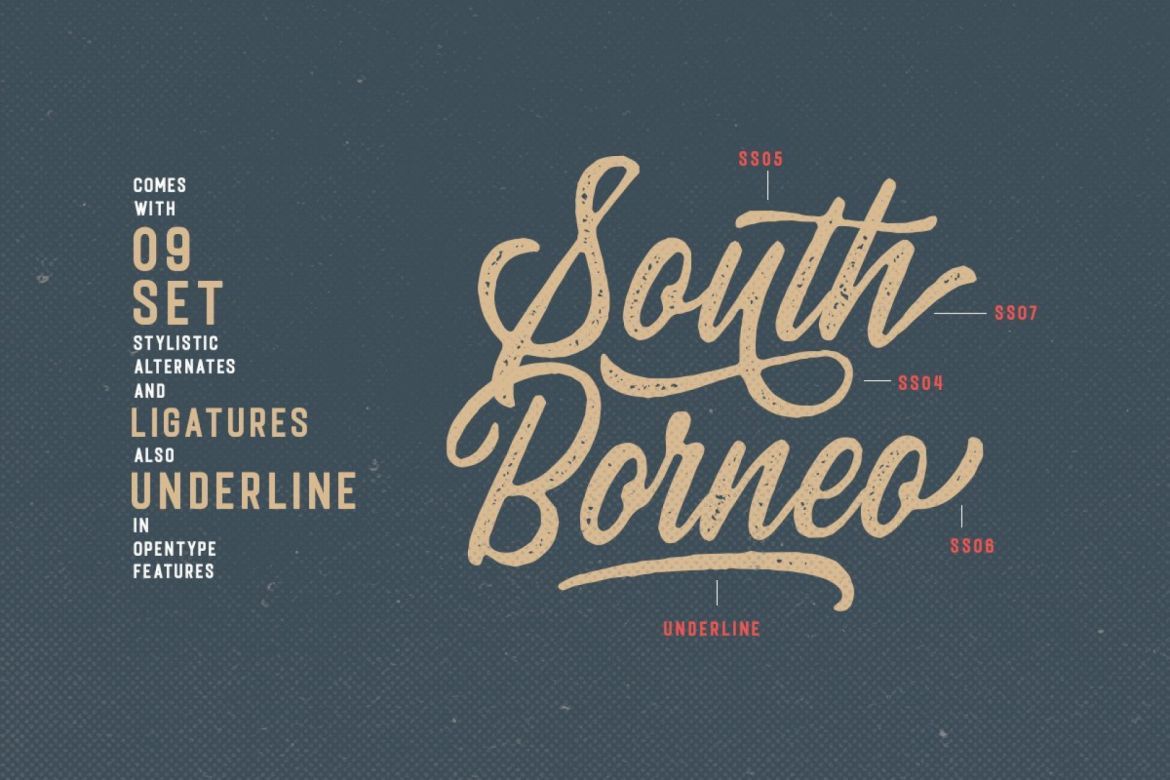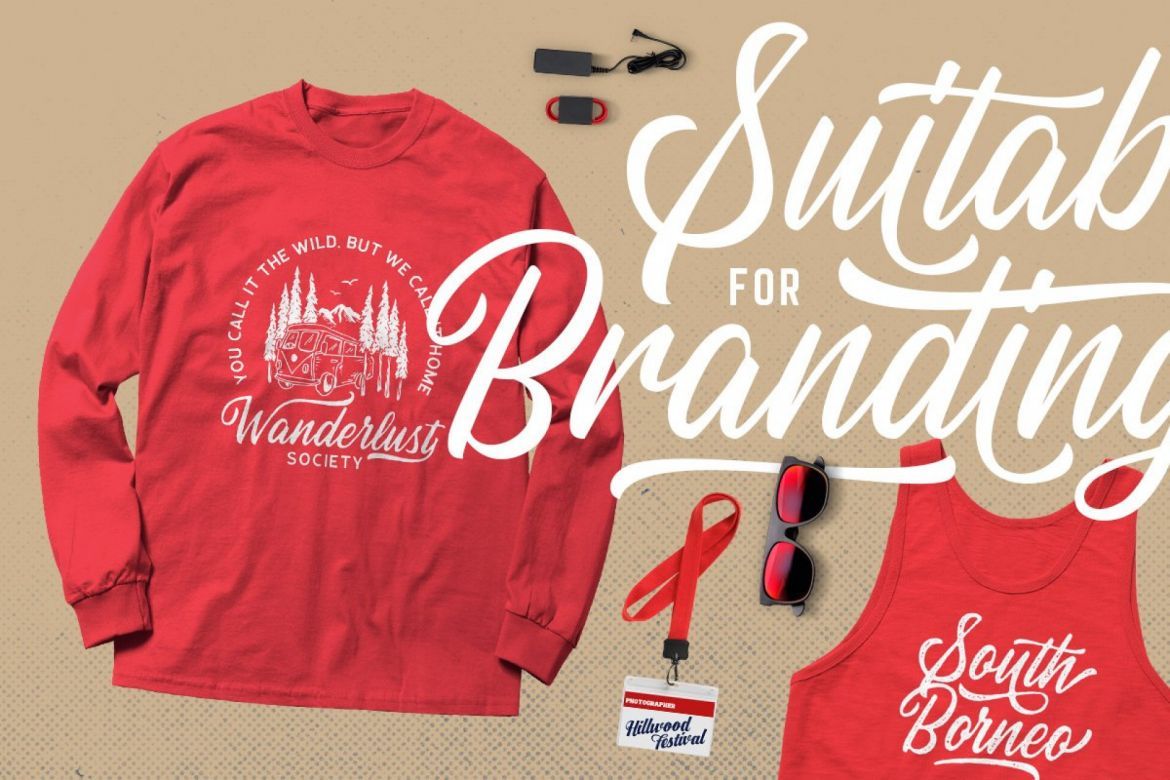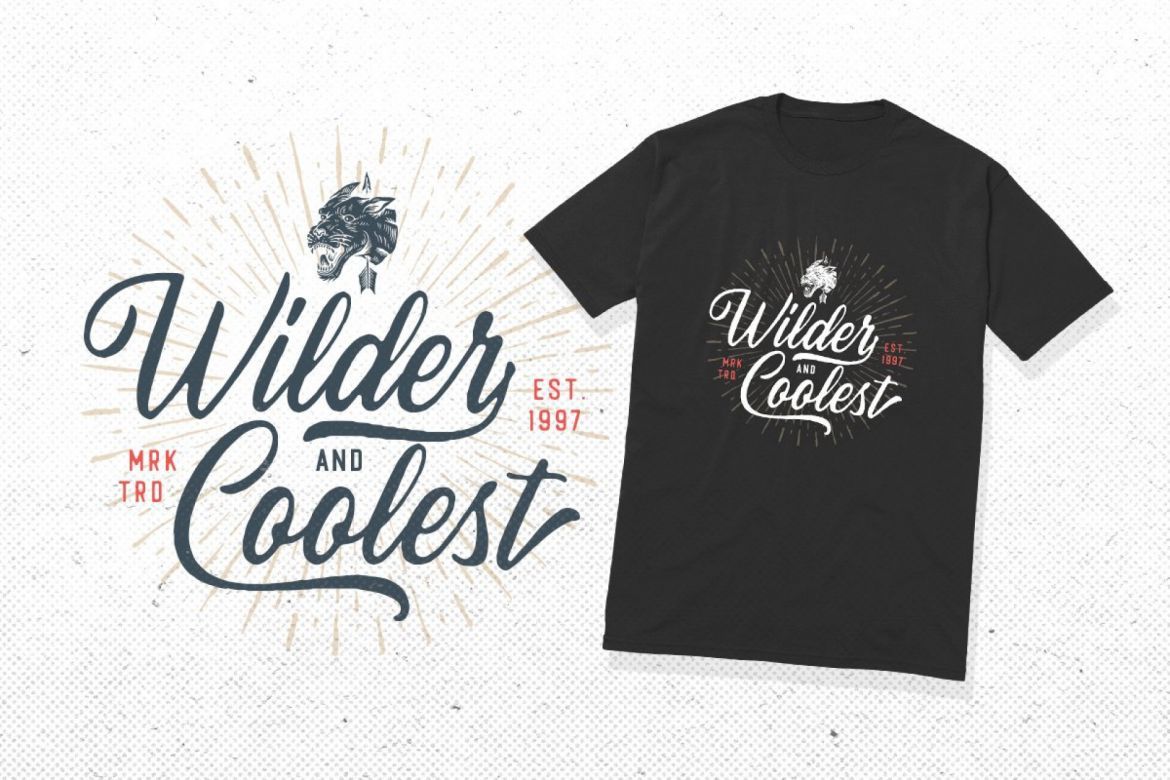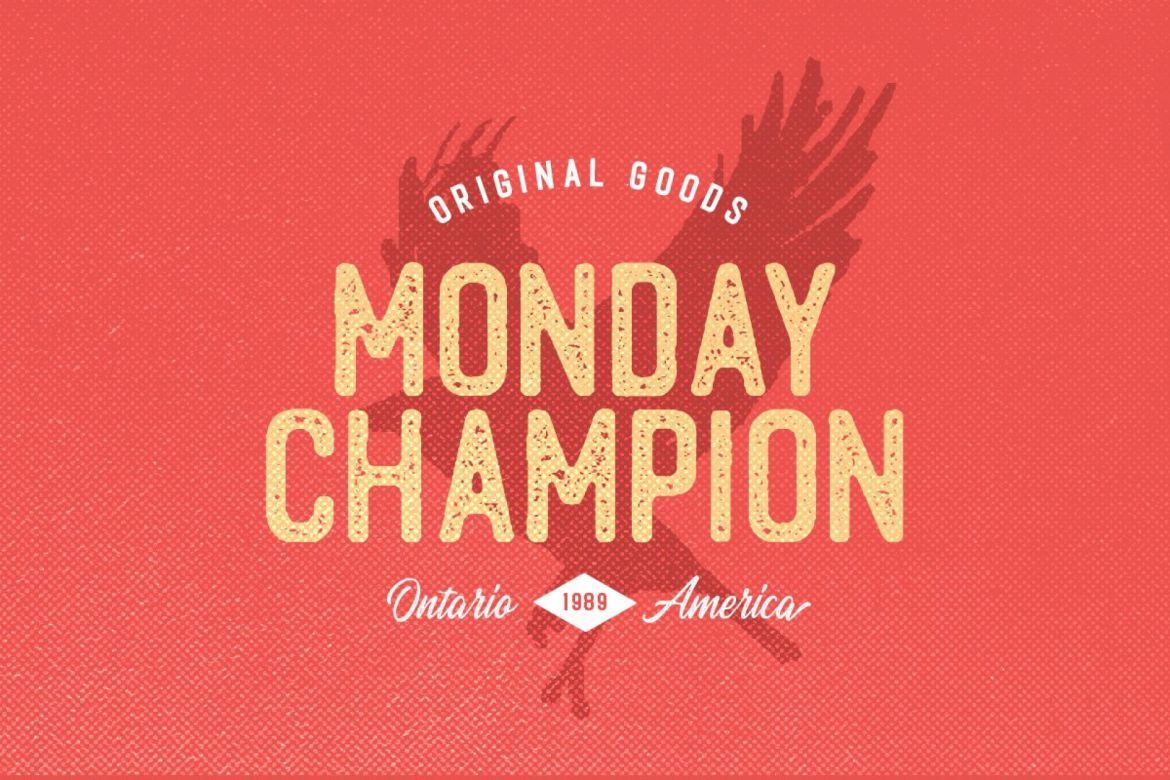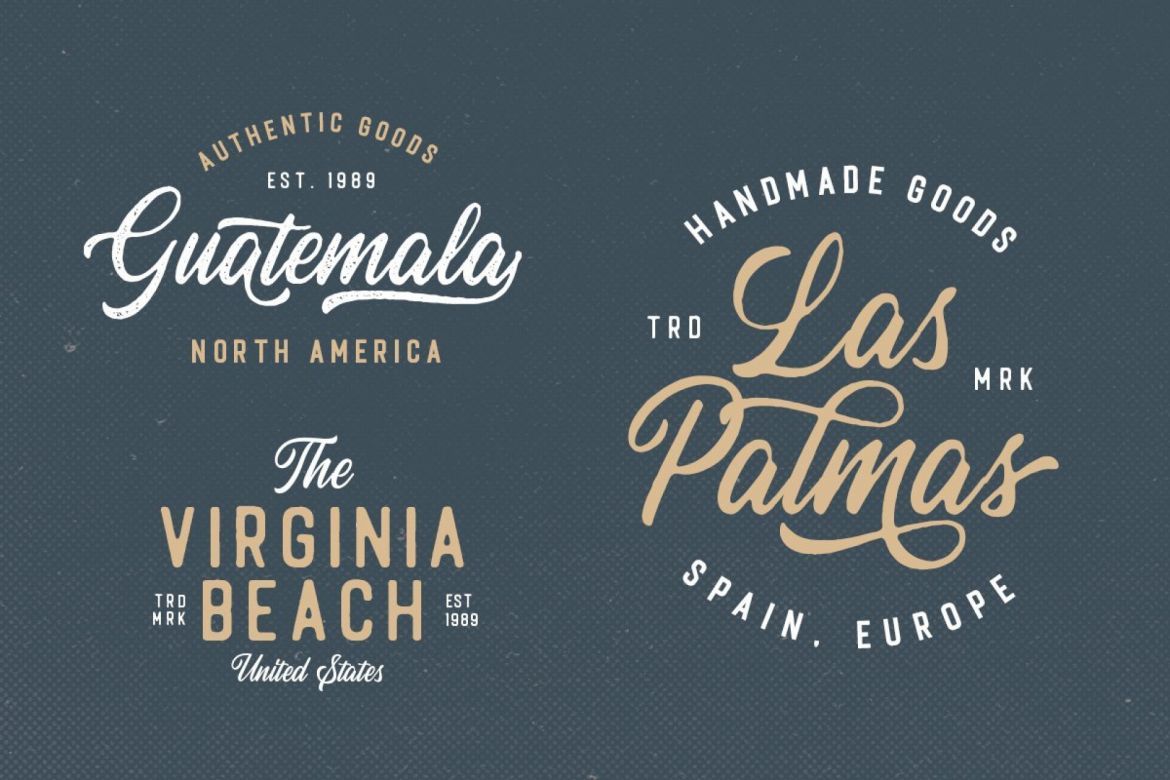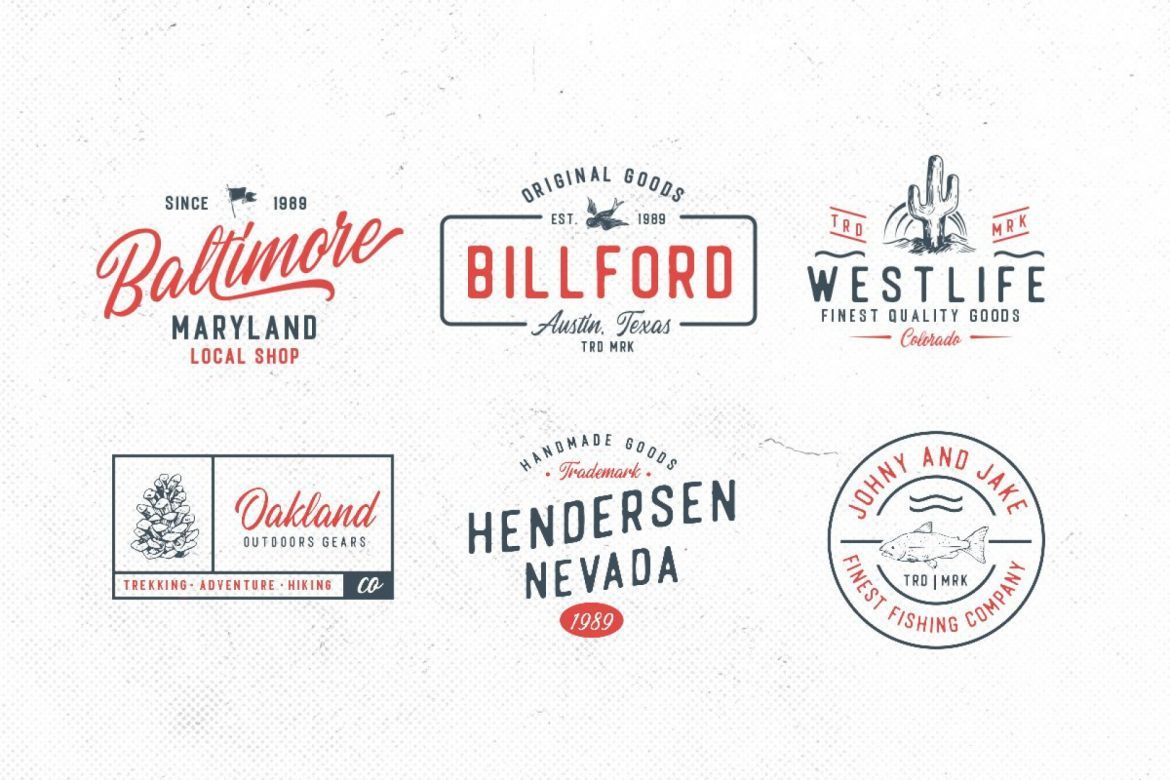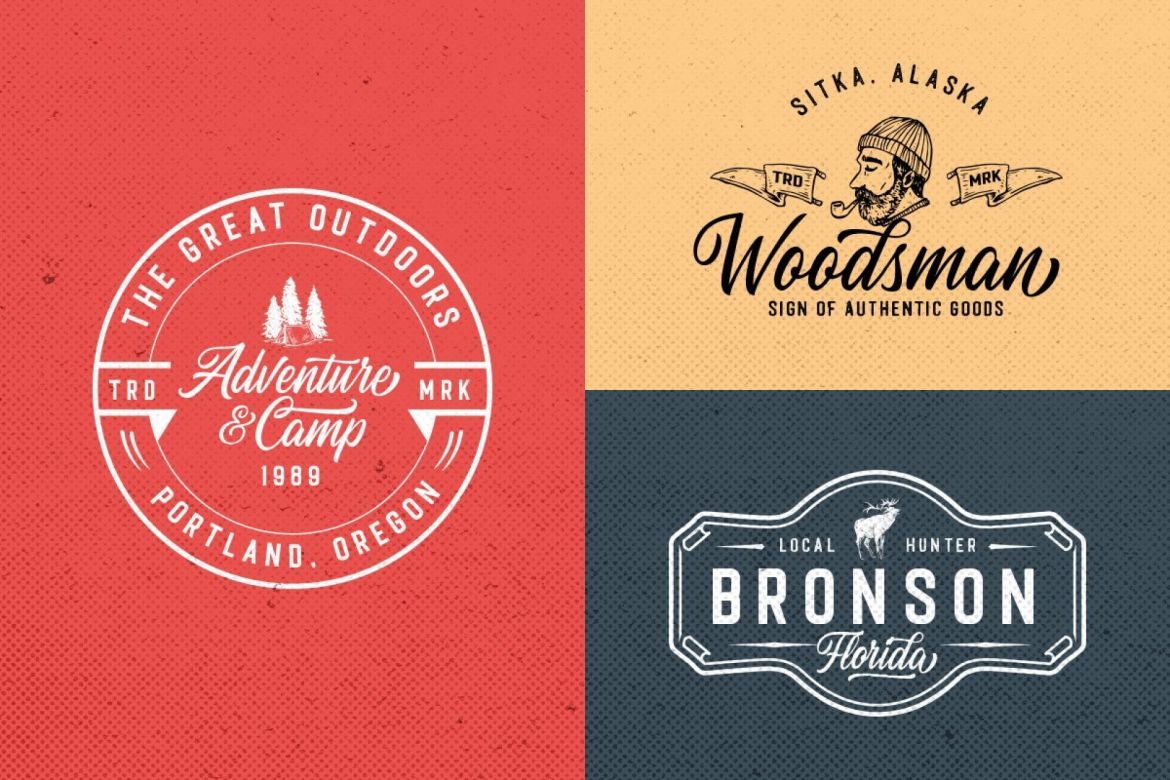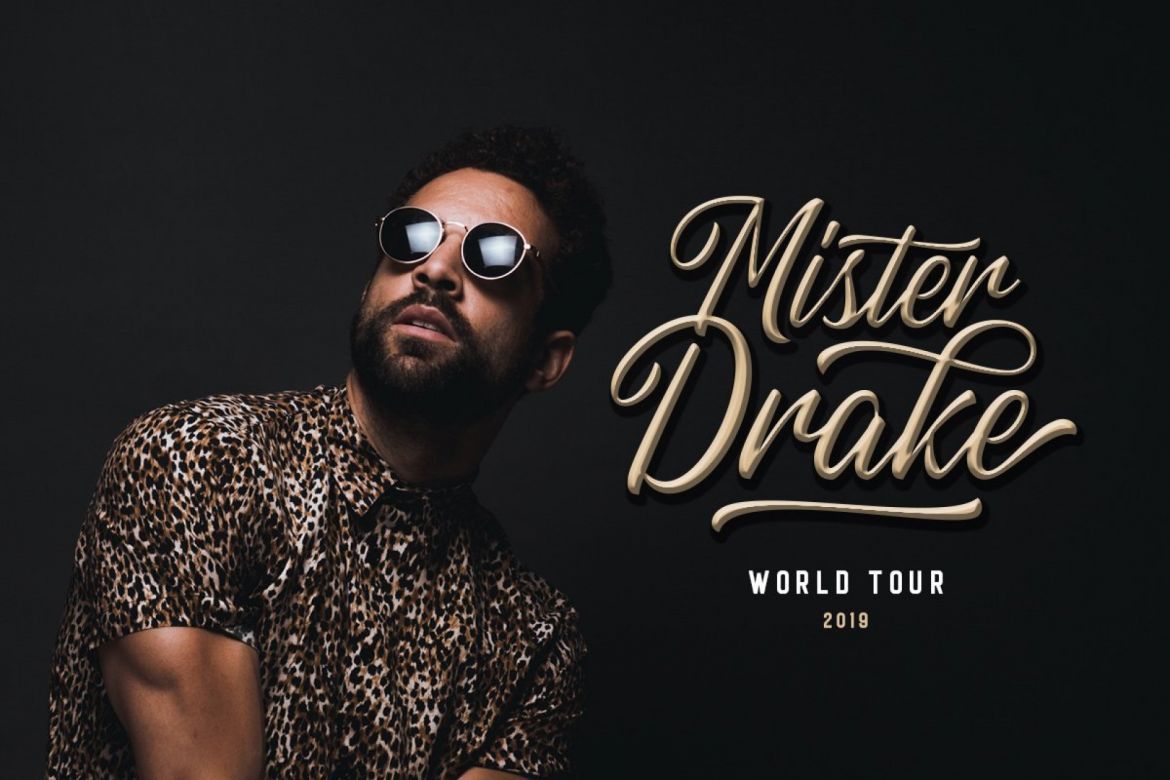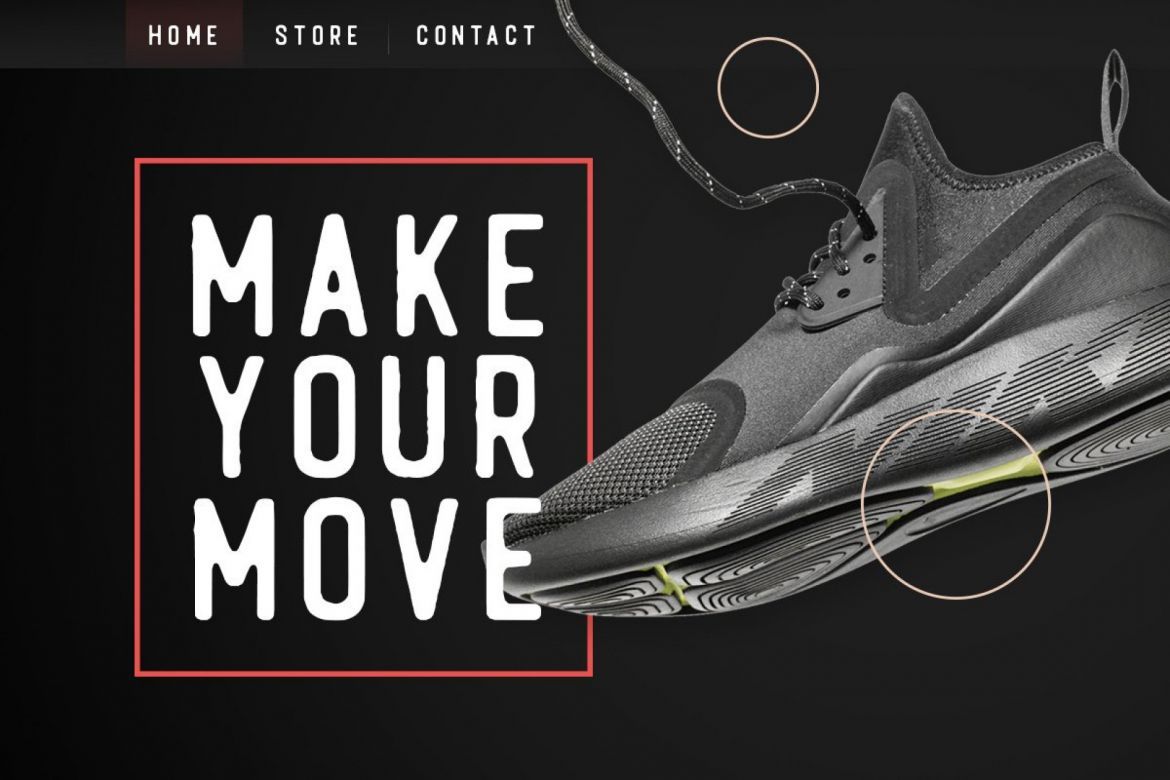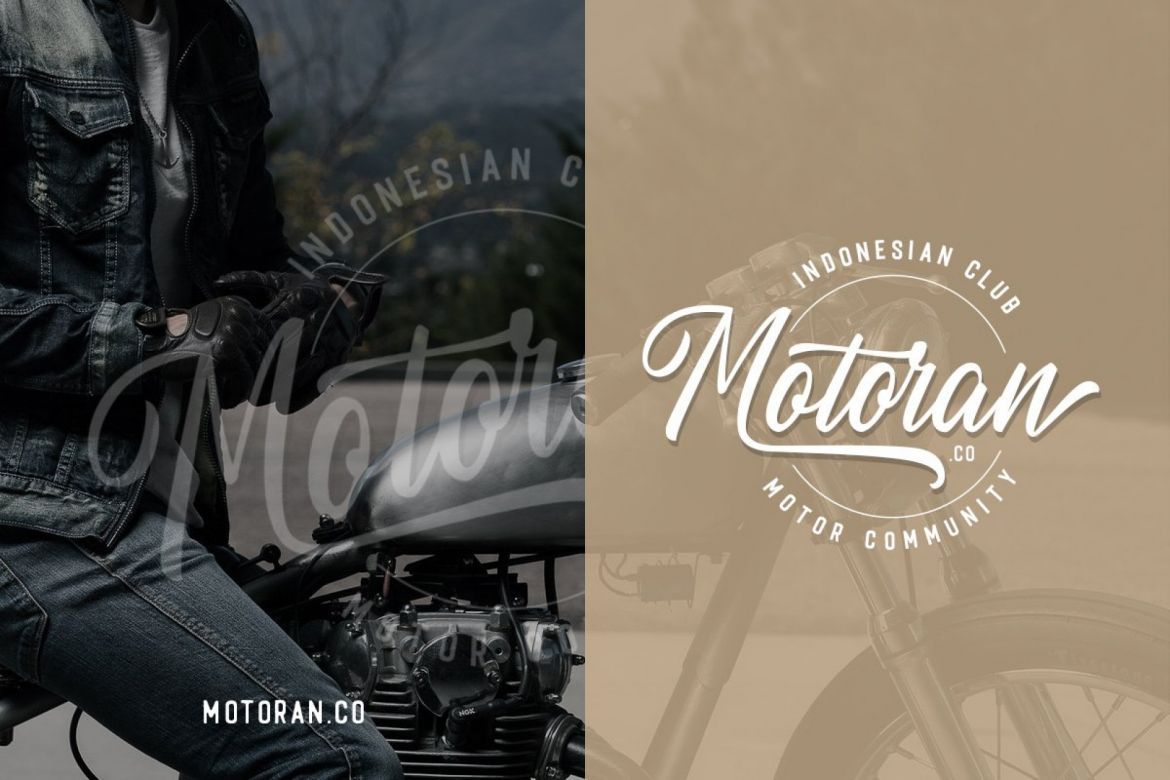
Autogate - Font Duo
Autogate - Font Duo (+BONUS)
• suitable for those of you who need fonts for especially types of logos, clothing, invitations, branding, packaging, advertising, etc.